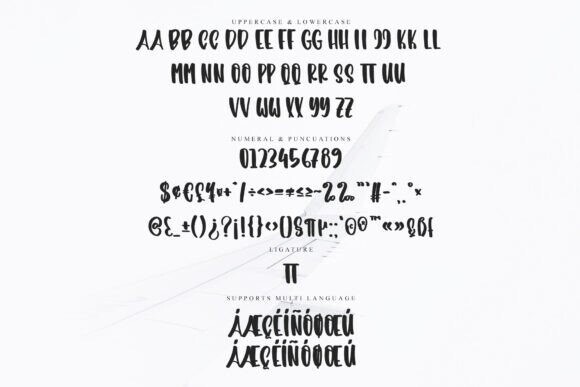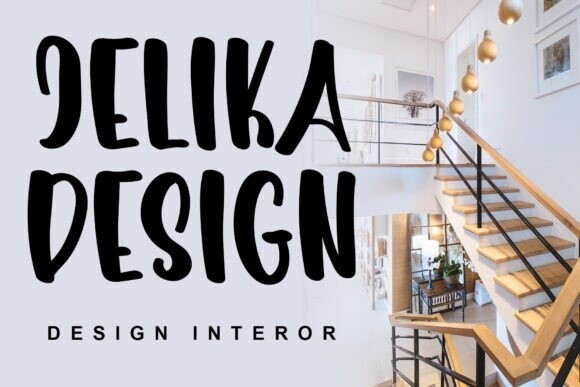
Gummy Display Font
Designer: YanStudio
Gummy Display Font is a fun and quirky display font perfect for use on cheerful topics. Very suitable for children’s themed designs, especially when combined with bright colors.